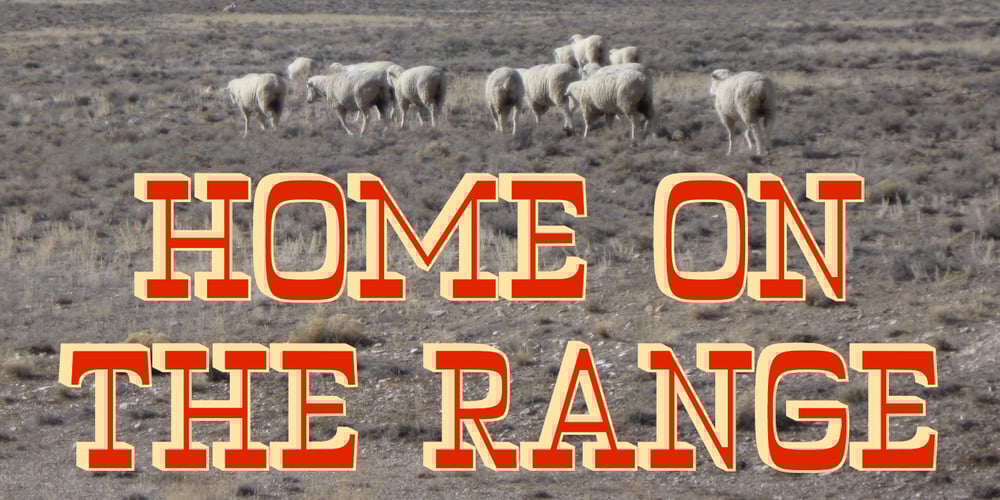
Wyoming Pastad Font Family was designed by Robert Schenk and published by Ingrimayne Type. Wyoming Pastad contains 4 styles and family package options. Wyoming Pastad is the simplest of the Wyoming series. The round letter shapes of Wyoming Spaghetti have moved toward squareness. The overall effect is that Wyoming Pastad no longer looks much like an “Old West” face.There are two shadowed versions of WyomingPastad. Using the ShadowedInside style in layers with the shadowed styles is an easy way to get two-colored letters.